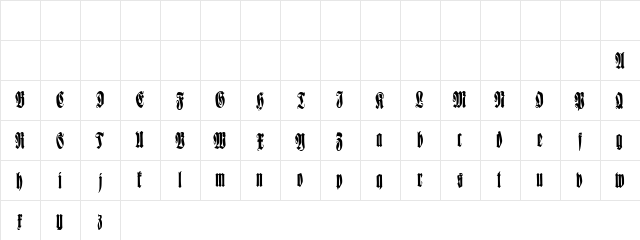
Wittenbach Demo Regular
Design Context for Wittenbach Demo Typeface
Wittenbach Demo takes a measured approach to typography — its balanced proportions and neutral character make it a reliable workhorse for both digital and print work.